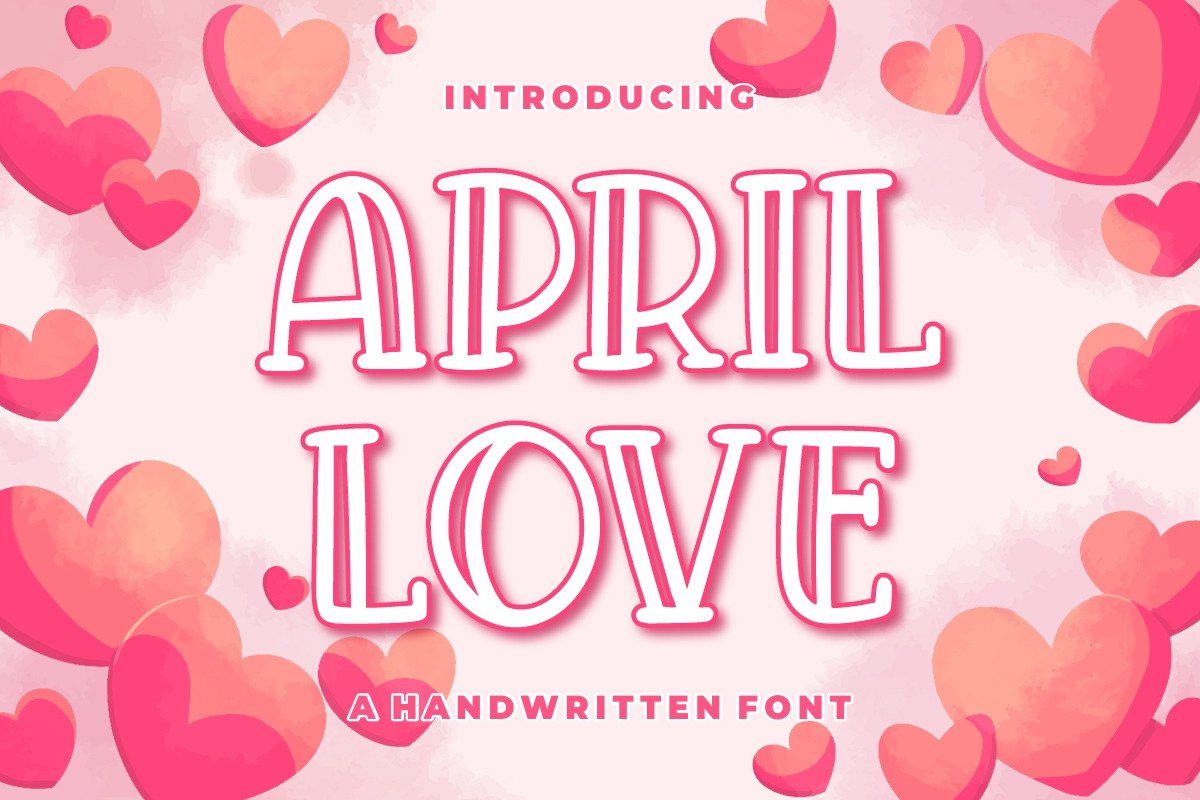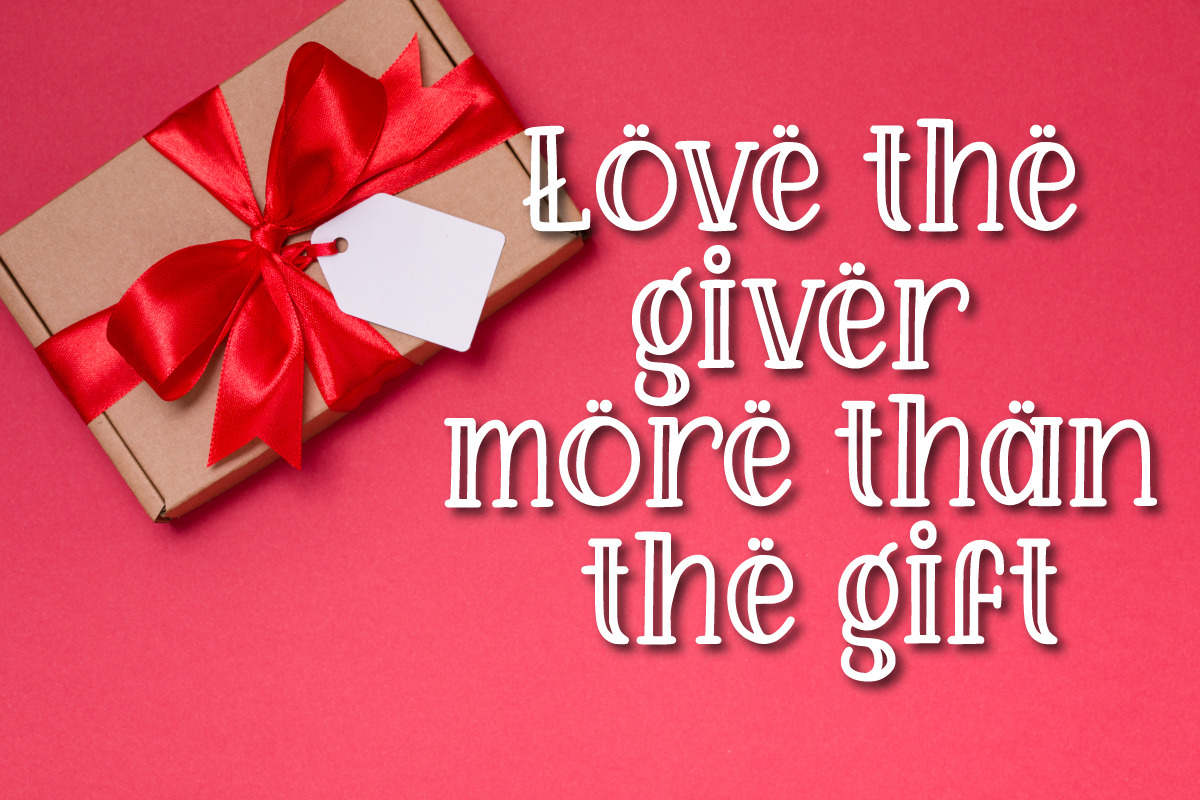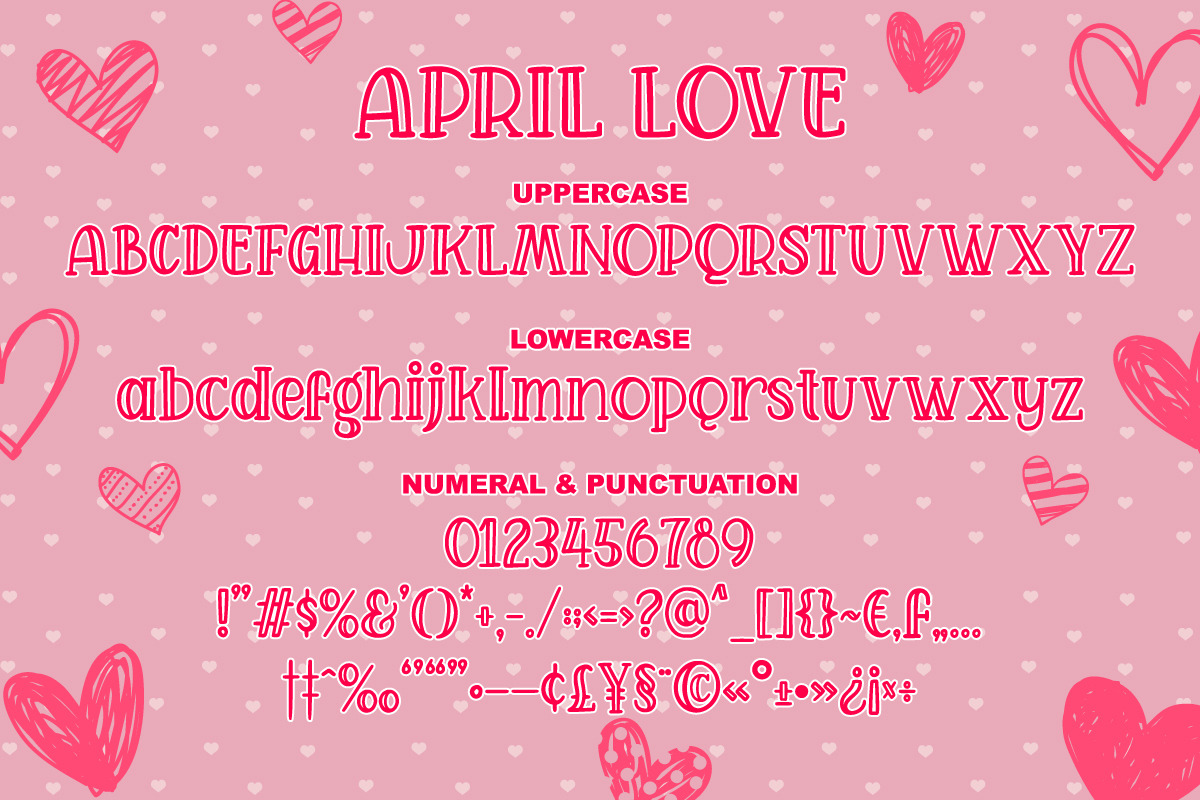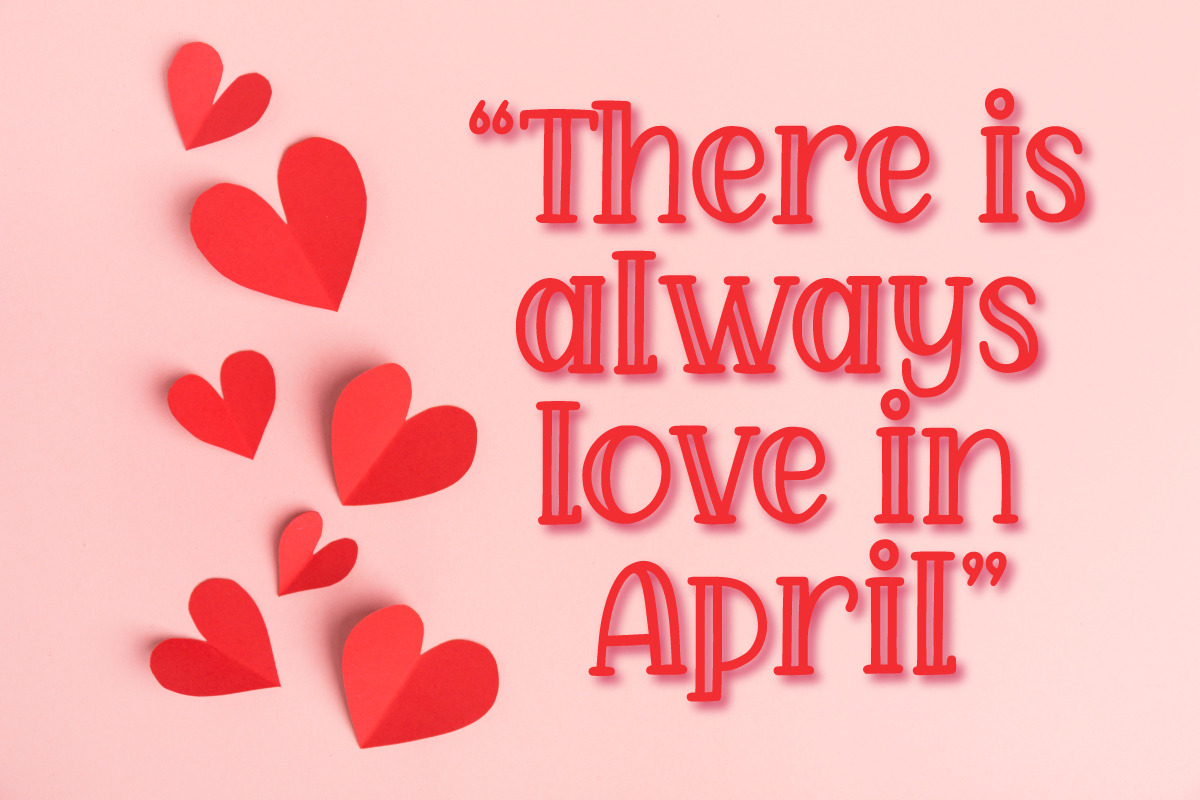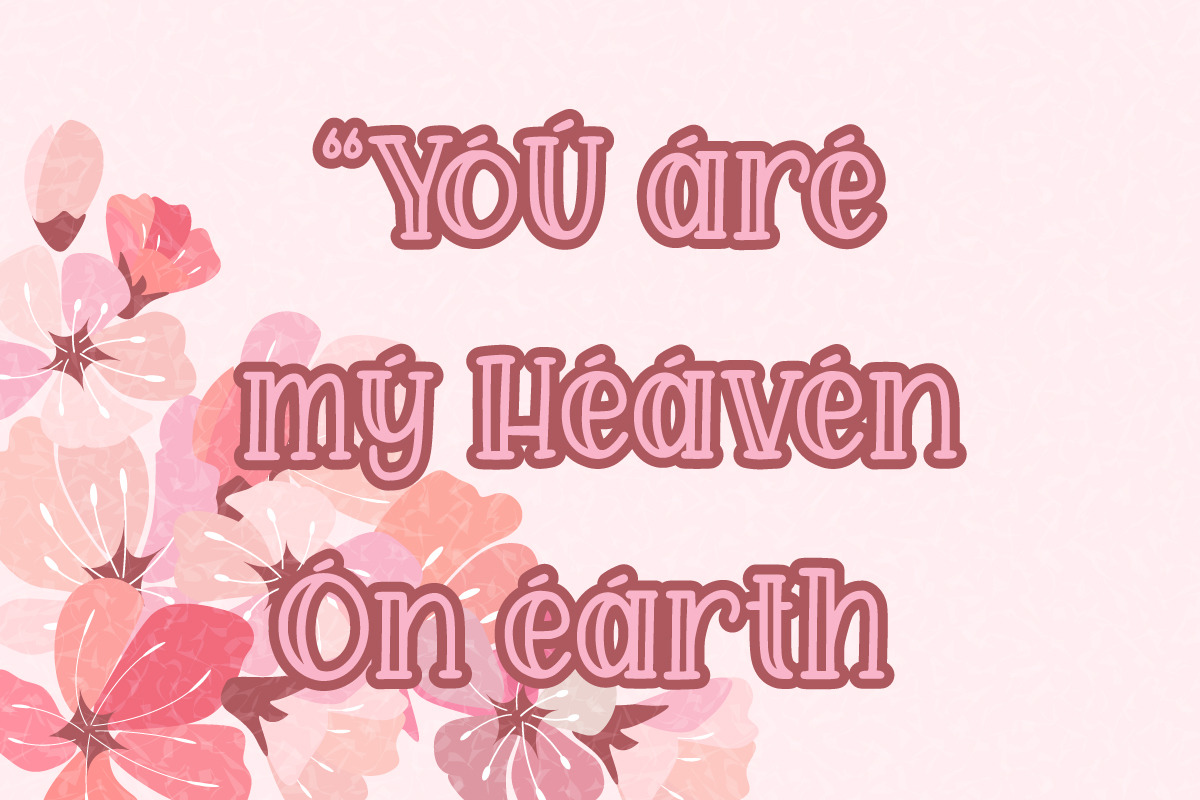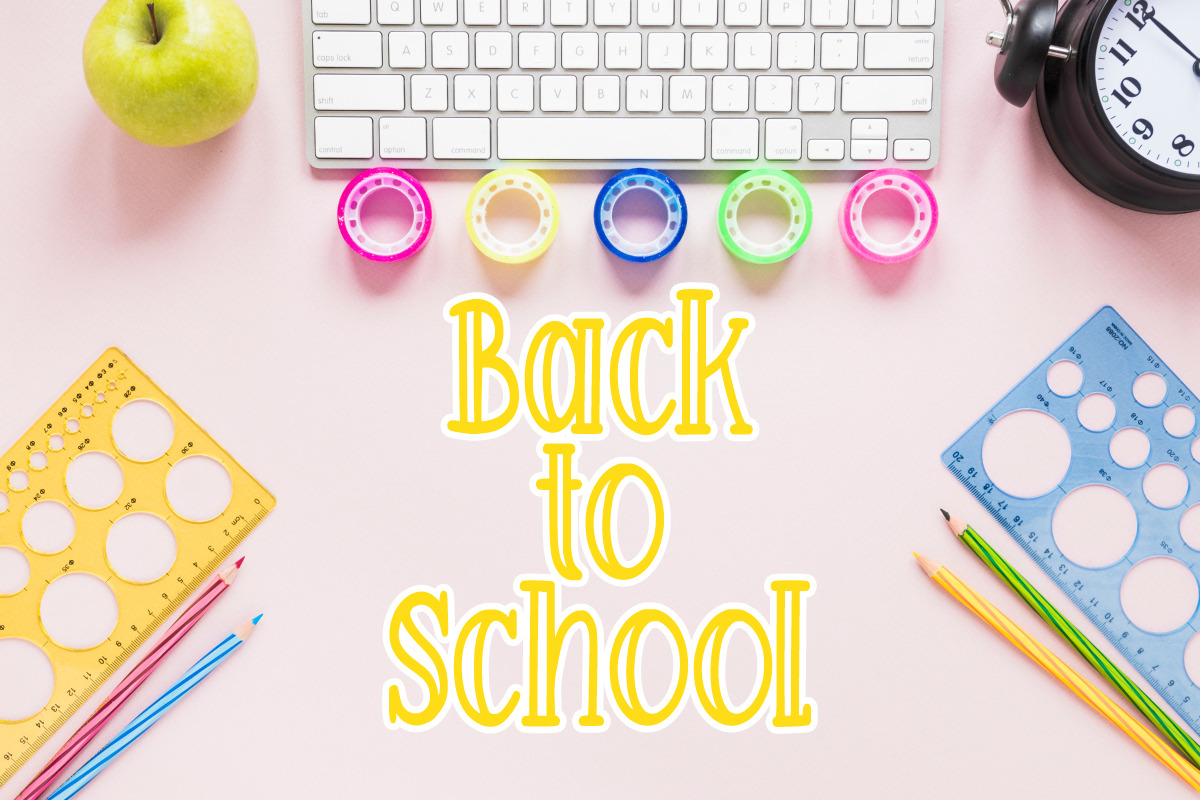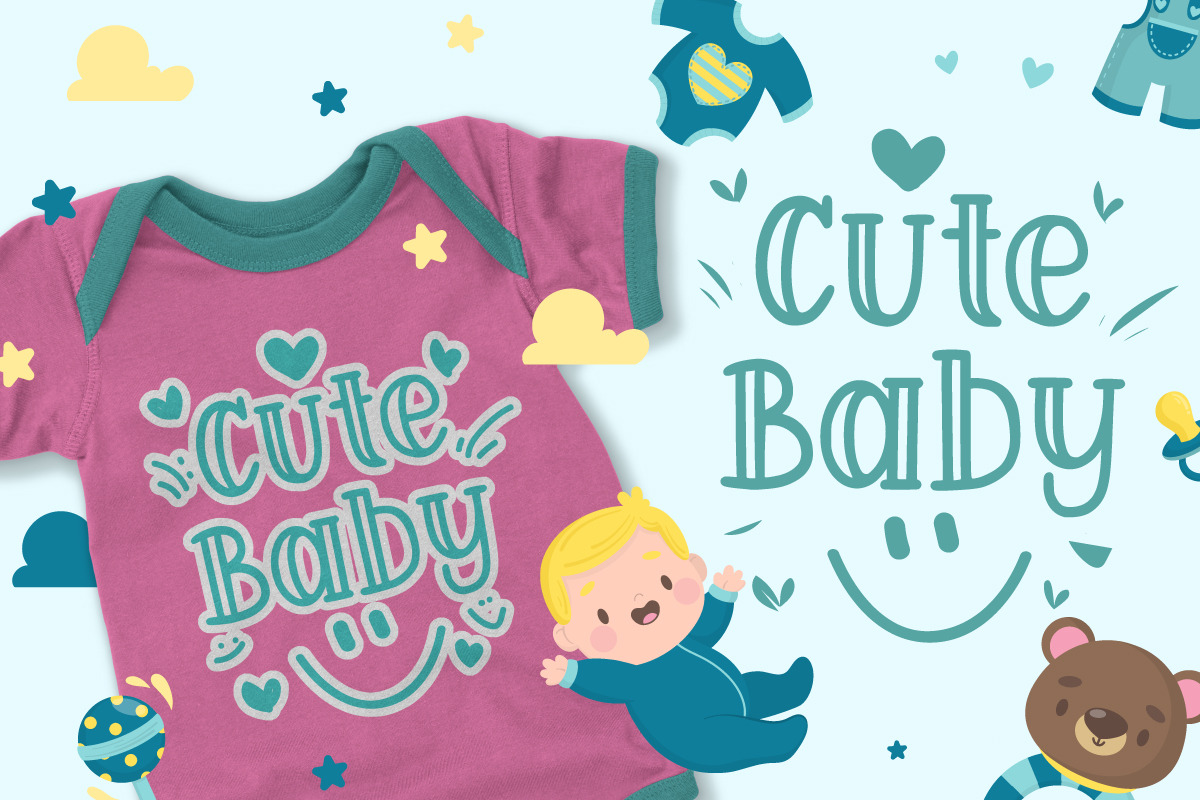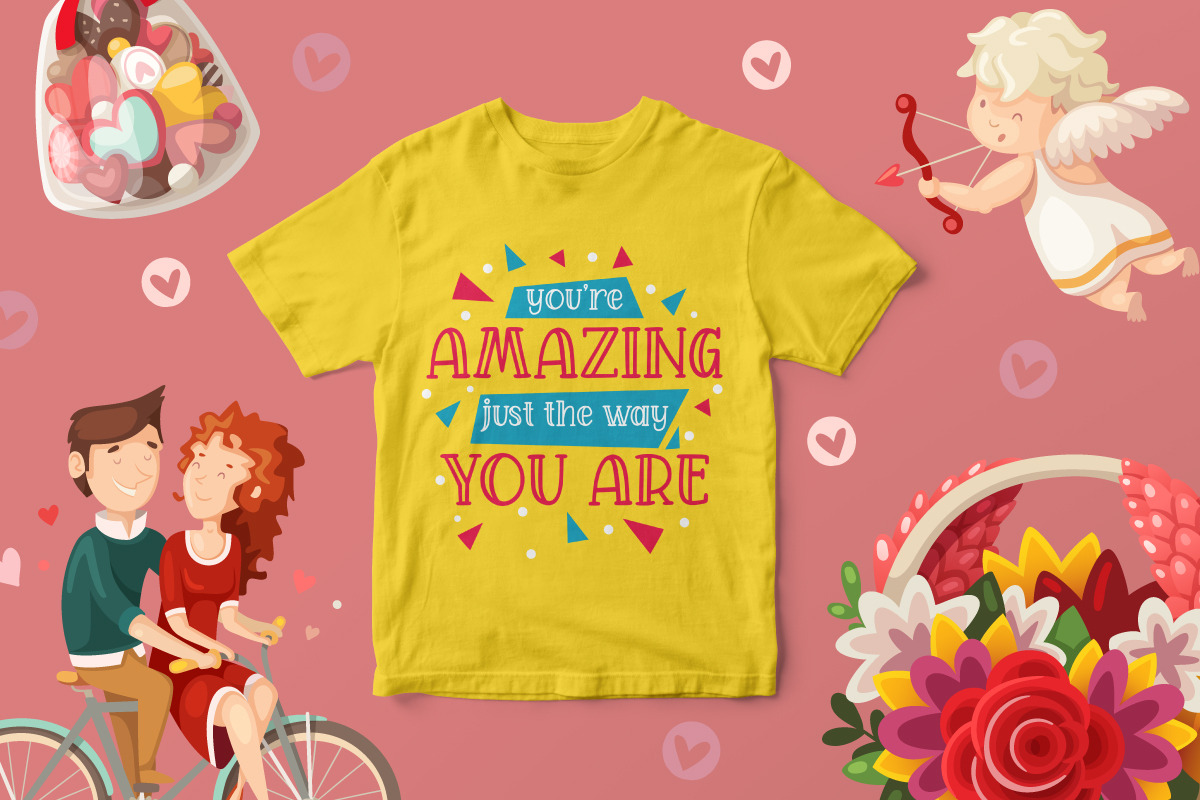
April Love - Handwritten Font
Introducing April Love - Handwritten Font
April Love is the perfect font for all your fun designs. The main font file is equipped with ordinary characters. Everything is made with the funny brush. So you can be sure they will work well together! It is suitable for you to use in making t-shirt design, quote, label, packaging, logo type, or long writing. Because we have compiled kerning and matrices that are tailored to your needs.
Why April Love - Handwritten Font is worth a look
April Love - Handwritten Font by Good Java Studio fits naturally into Branding, posters, packaging, typography.